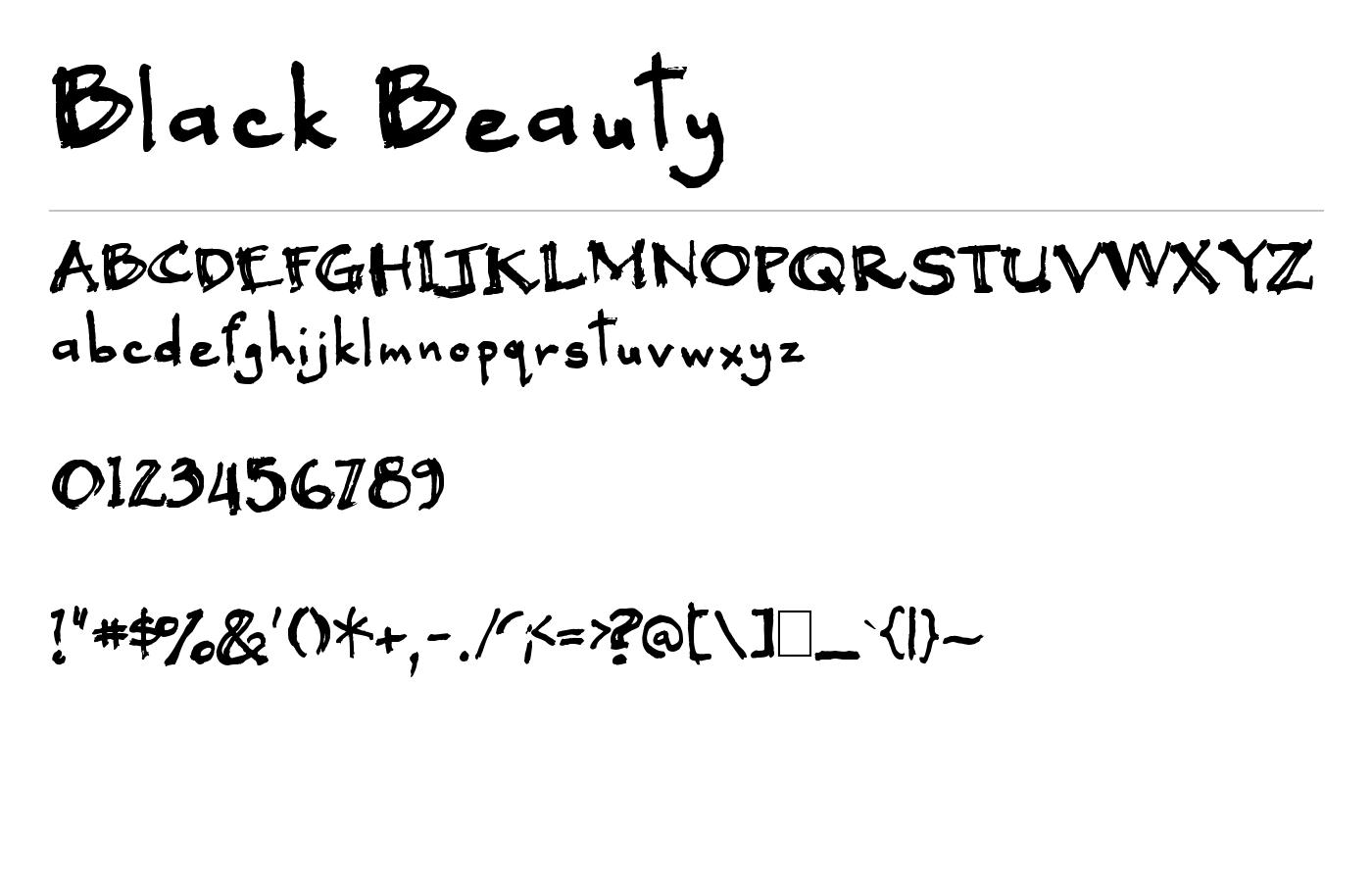
Black Beauty is a bold, hand-drawn sans serif font with an organic, textured style that gives it a playful and artistic feel. Its irregular strokes and uneven shapes create a lively, casual appearance well suited for creative projects, informal branding, and eye-catching headlines where a youthful, expressive vibe is desired. This font works best in designs aiming for a quirky, handcrafted look rather than formal or traditional uses.
Black Beauty Font
About Black Beauty Font